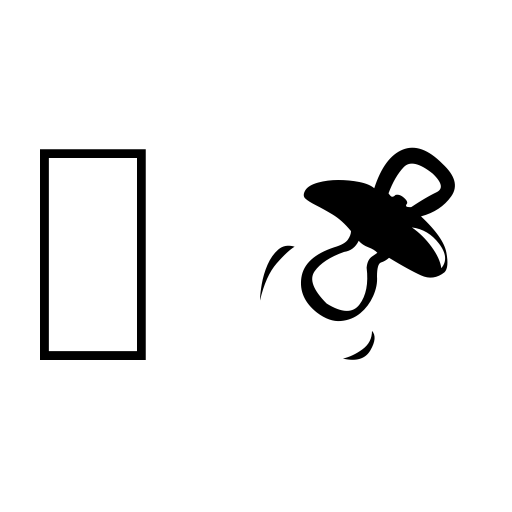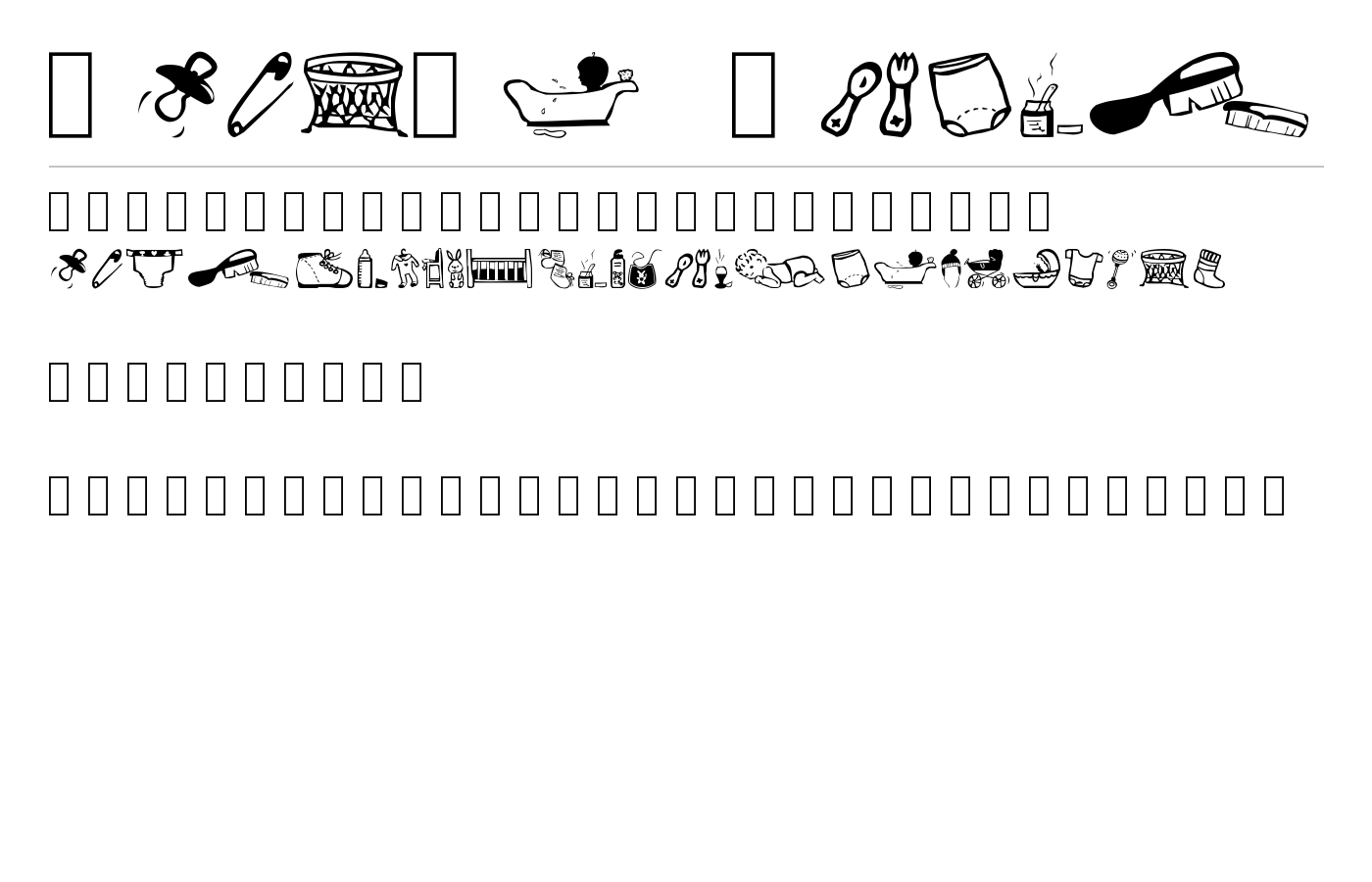
Baby's World Font is a playful, illustrated dingbat typeface featuring charming baby-related icons such as pacifiers, bottles, diapers, and toys. This whimsical font works beautifully for designs aimed at parents, nurseries, or children’s products, adding a warm and friendly touch to invitations, packaging, and promotional materials. Its unique, hand-drawn style brings a lively and approachable mood that resonates well with family-oriented themes.
Baby's World Font
About Baby's World Font